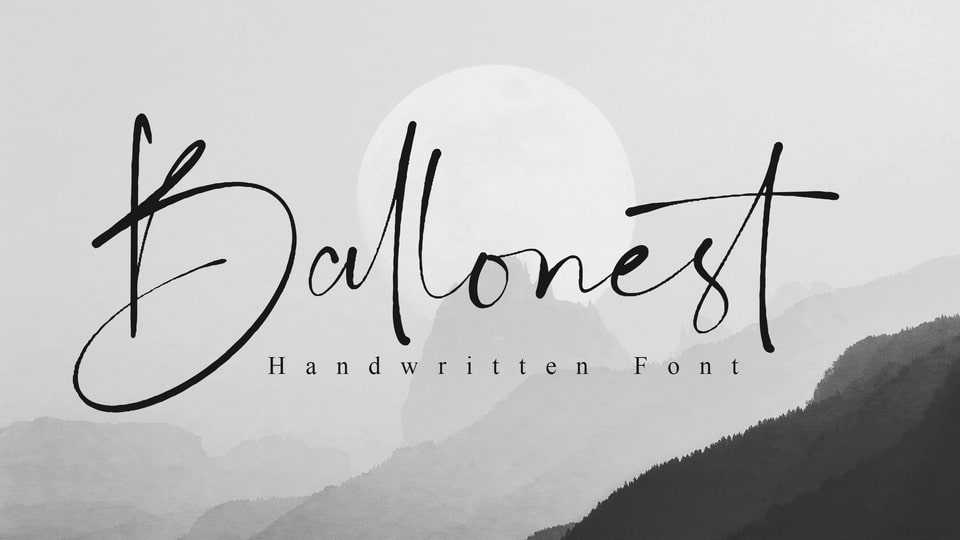
Download Ballonest font, a handwritten typeface with a stylish, elegant and natural touch. Ballonest has an original feel and beautiful handwriting. Made seriously, with care and with feeling.
Designer: MadhalineStudio